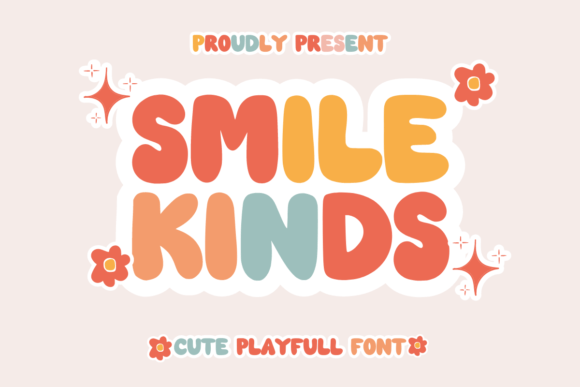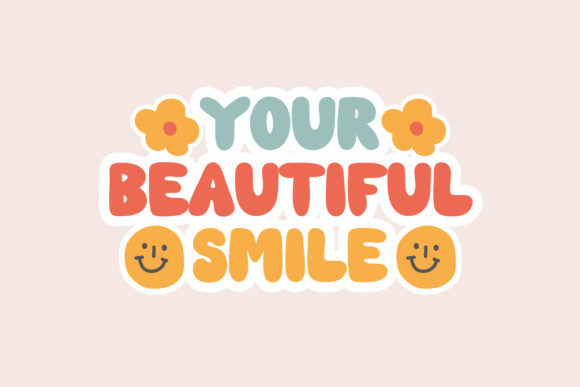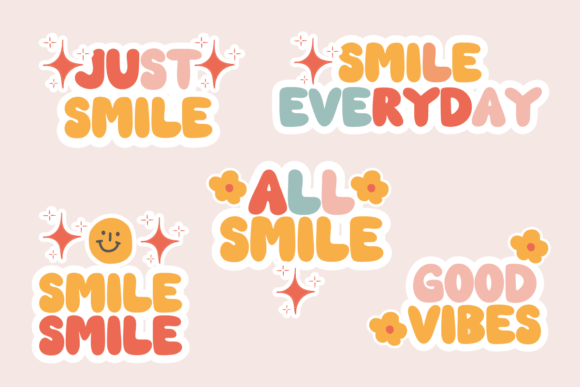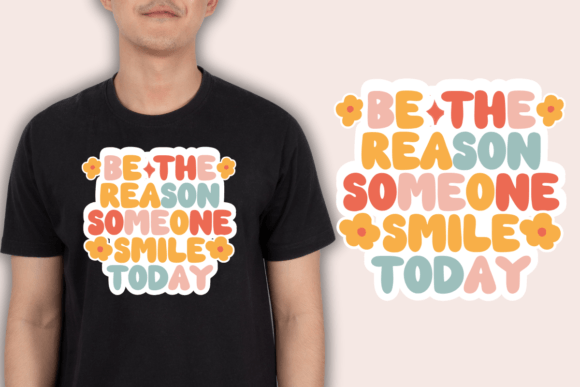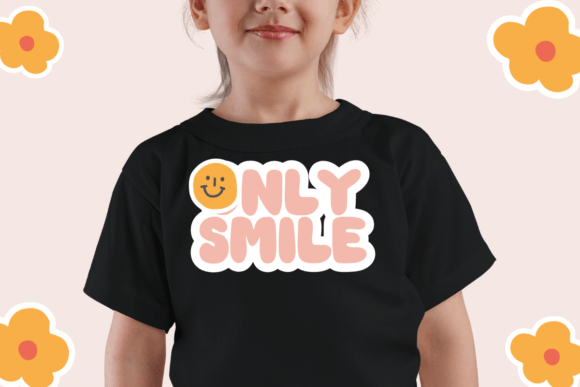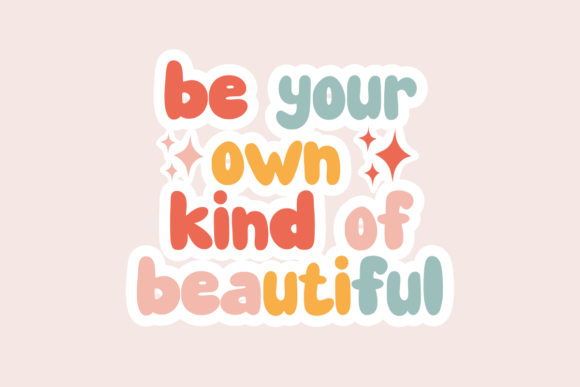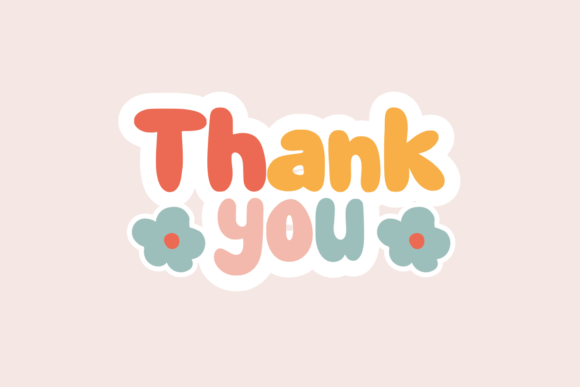
Smile Kinds Font
Smile Kinds is a playful and cute font, it’s perfect for designs that need a playful, cheery accent. Smile Kinds is suitable for book covers, posters, packaging, merchandise, logotypes, and many more!